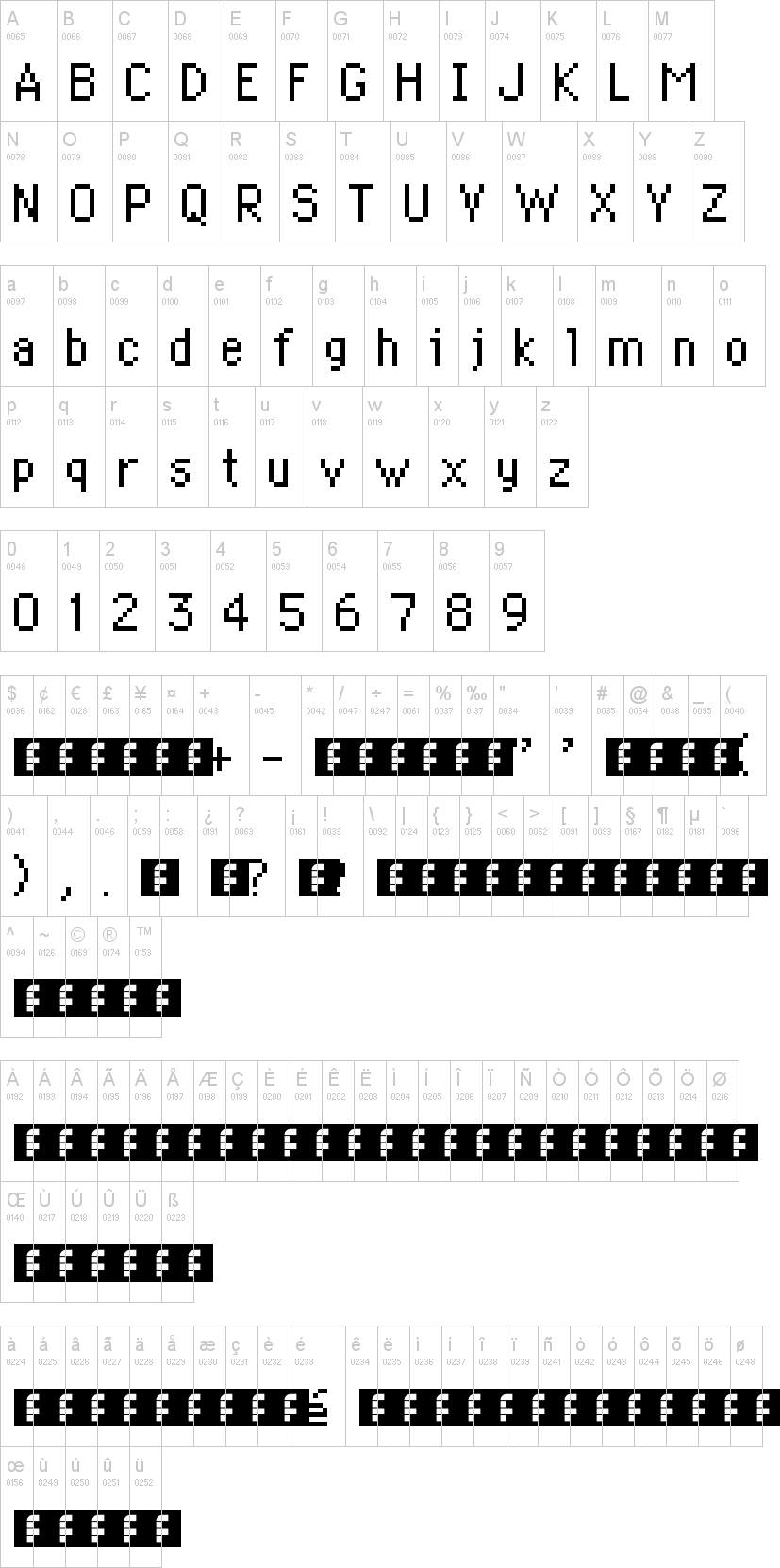
Note of the authorThis is the font used in the GBA/NDS game Pokémon Mystery Dungeon.
Usually when I check game sprite rips, there's a font as well.
But sometimes I can't find an actual font file, so I decided to make them myself.